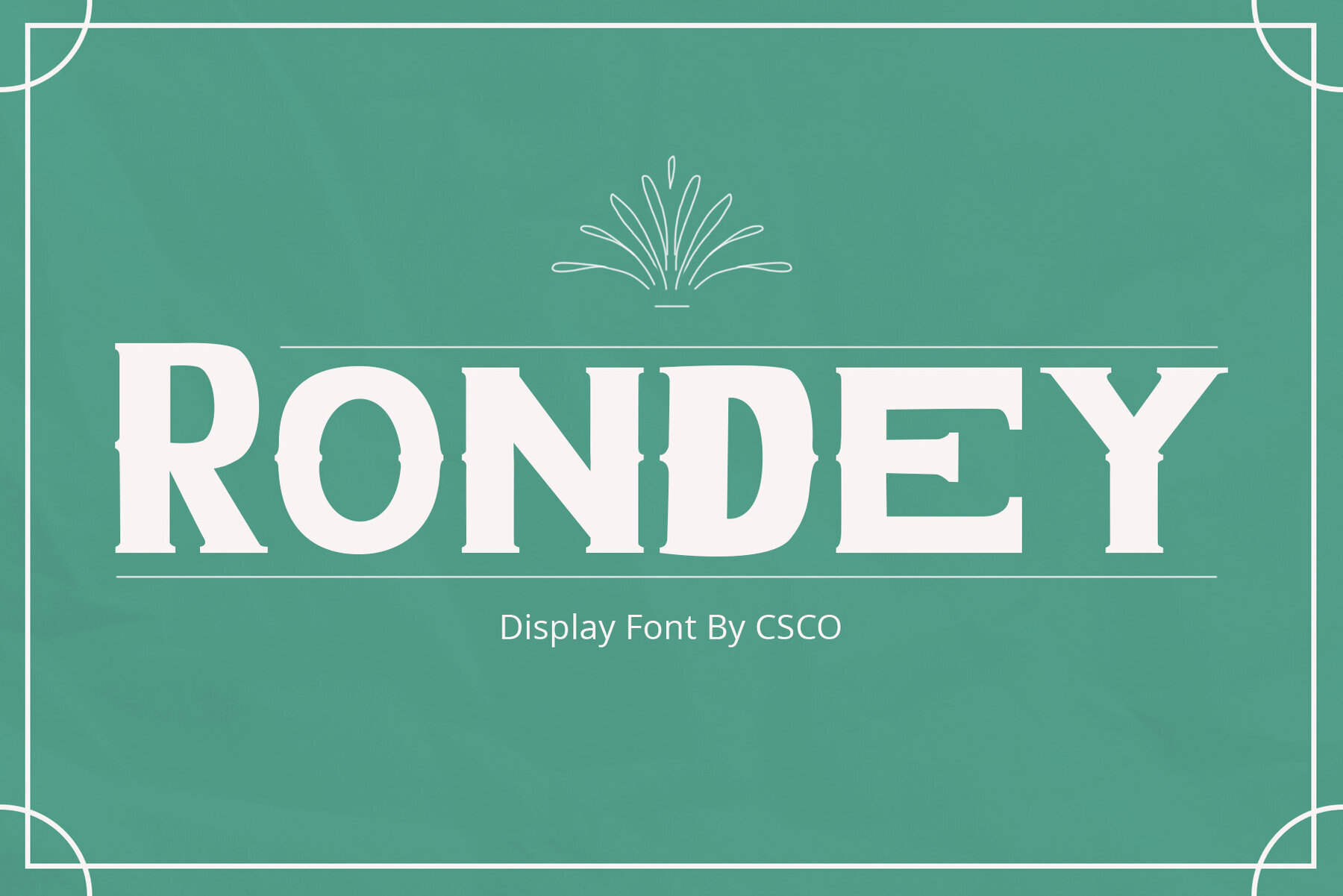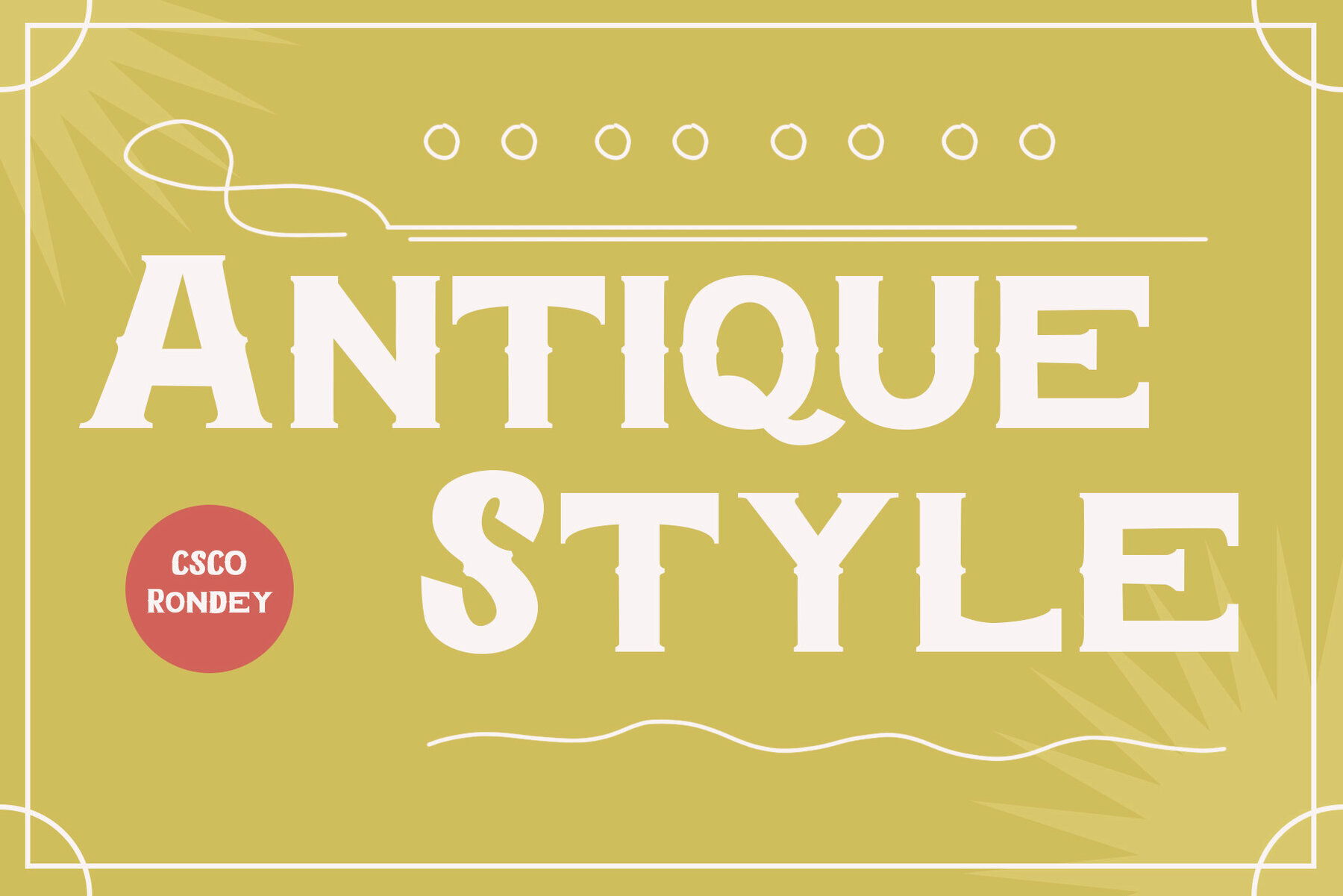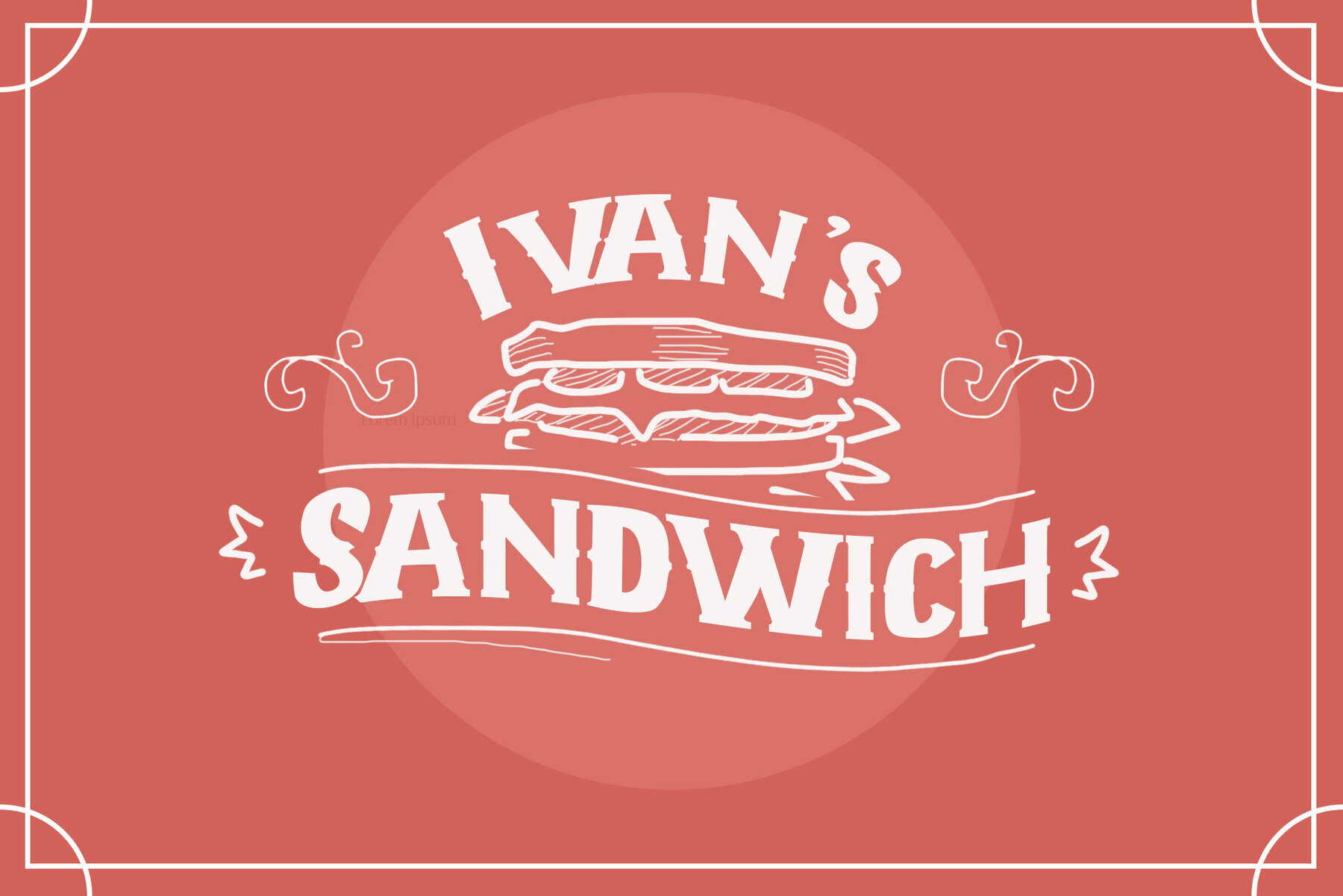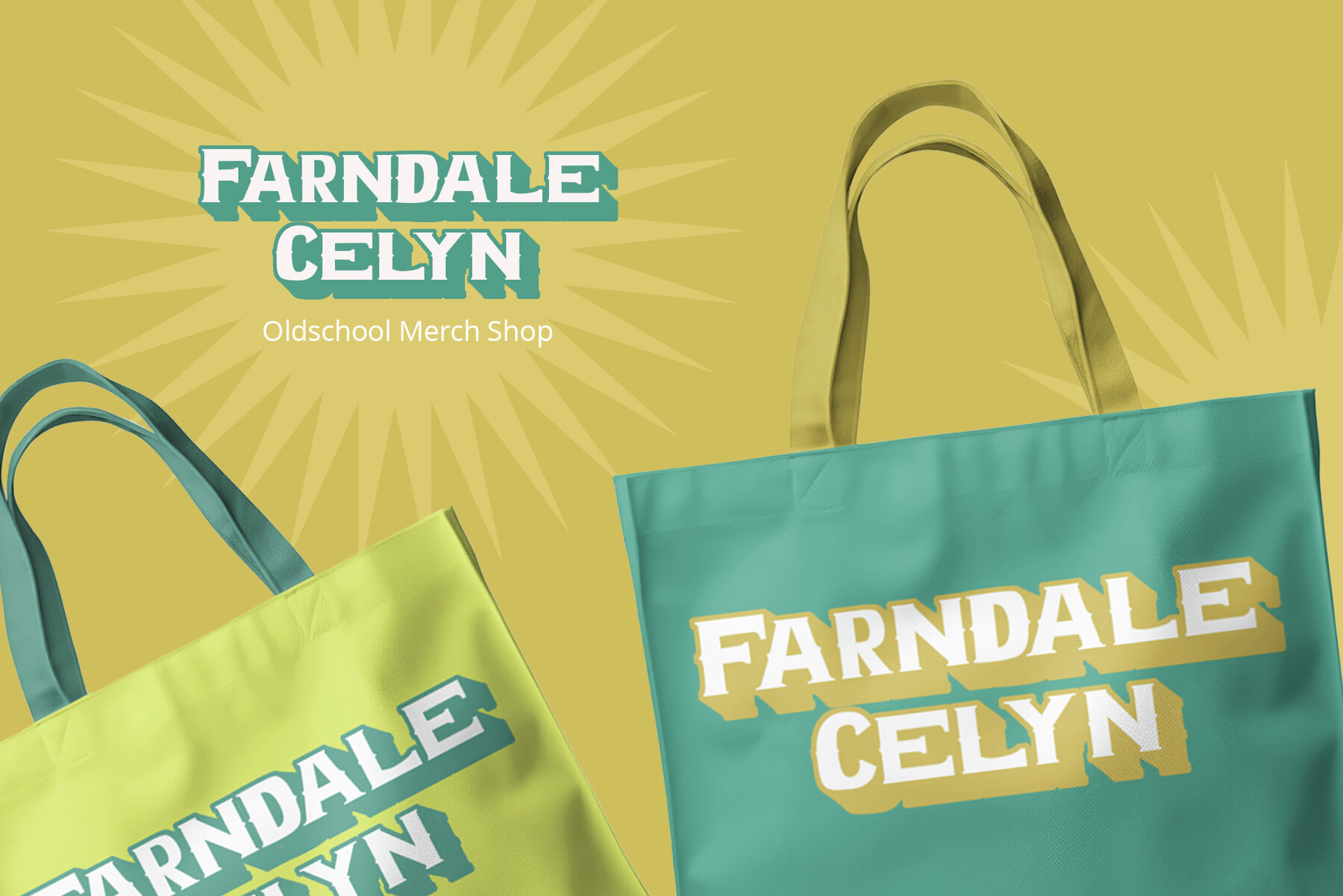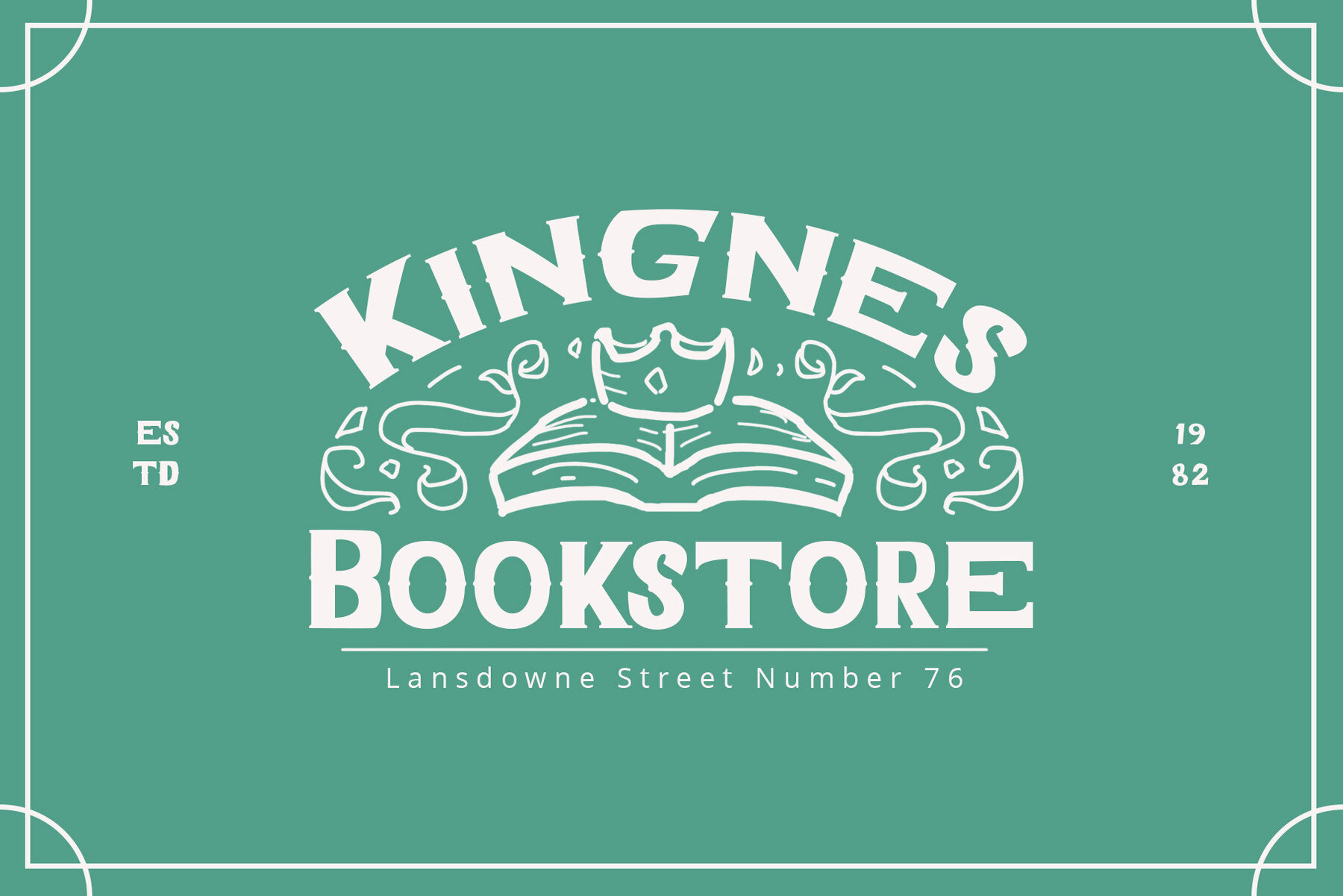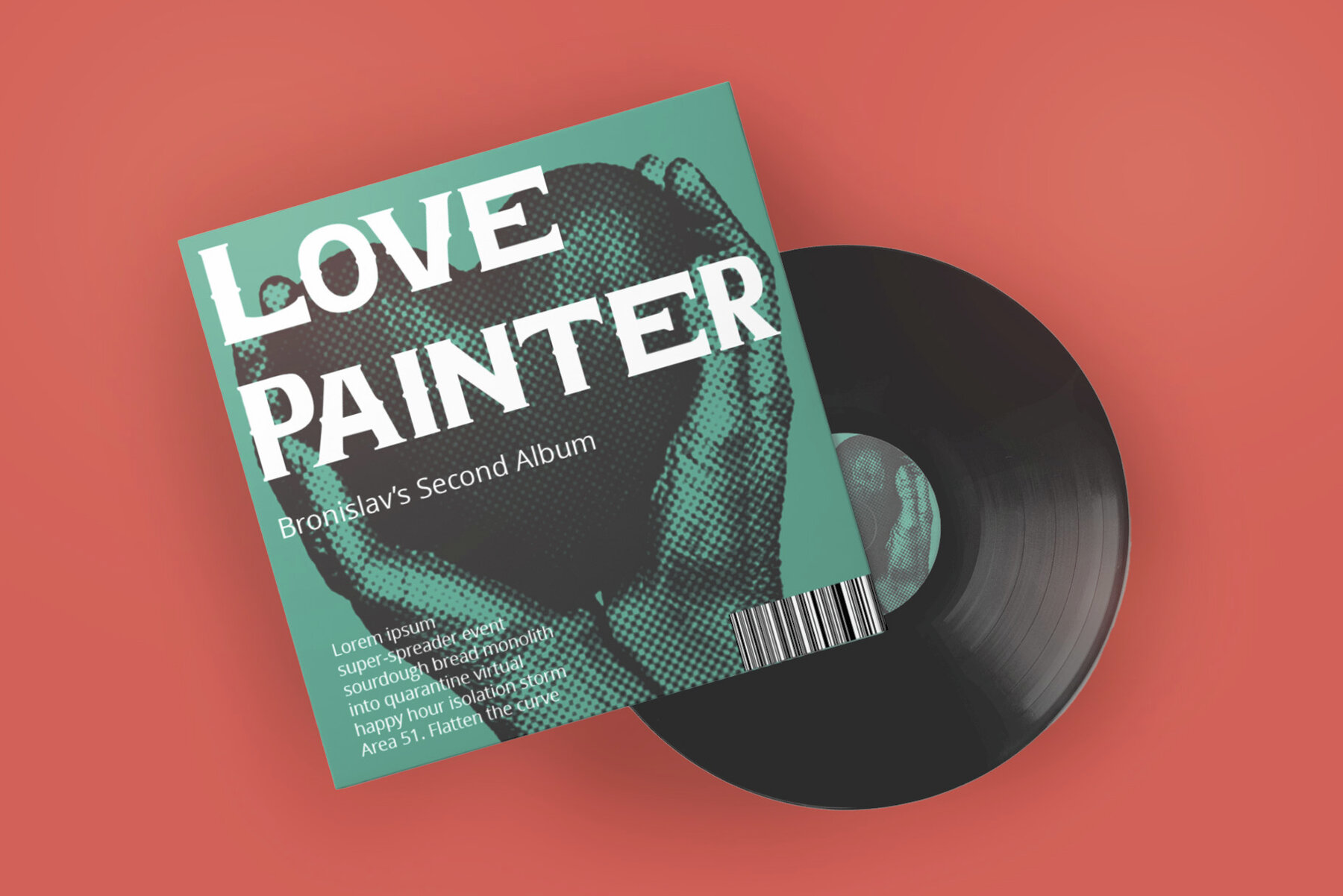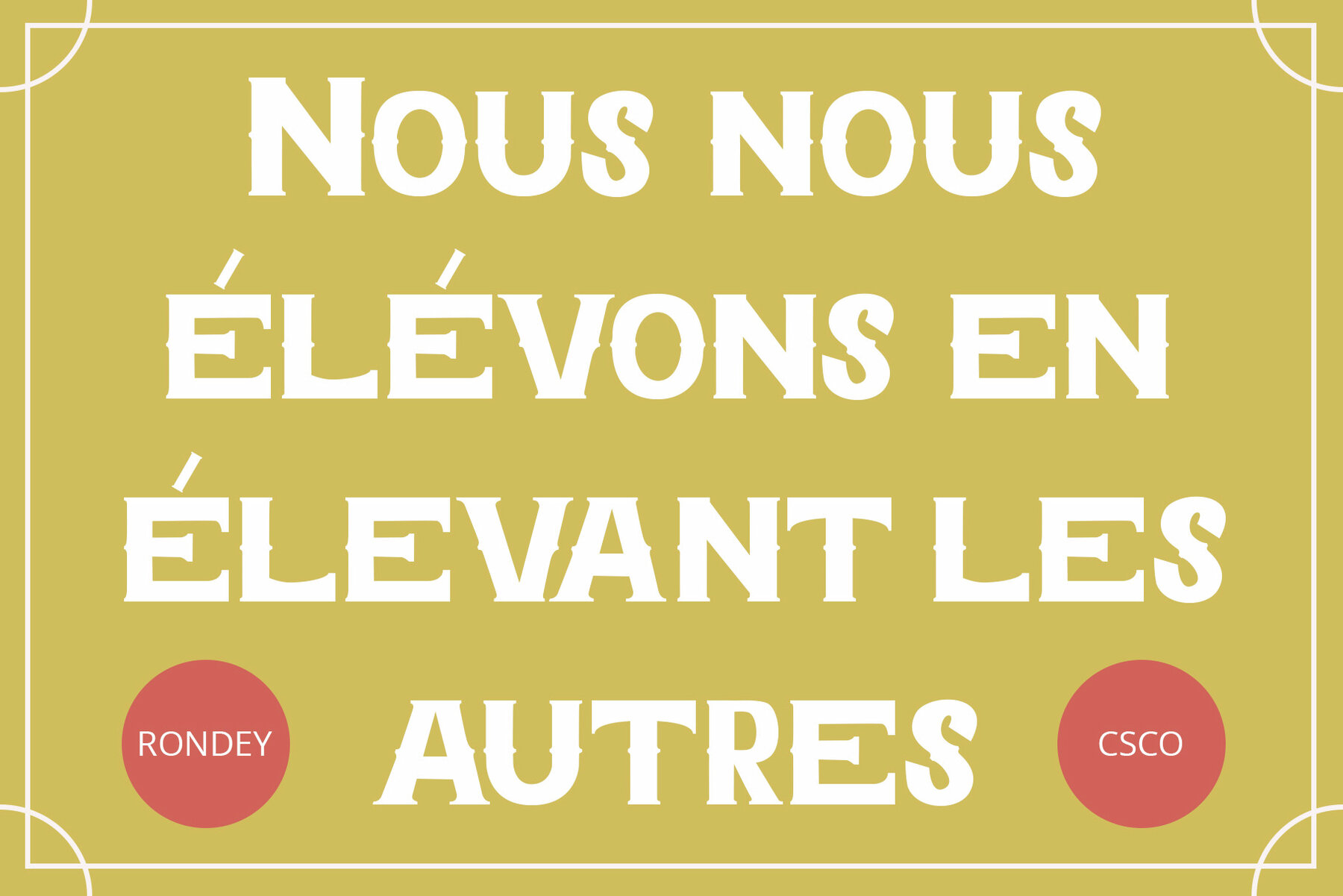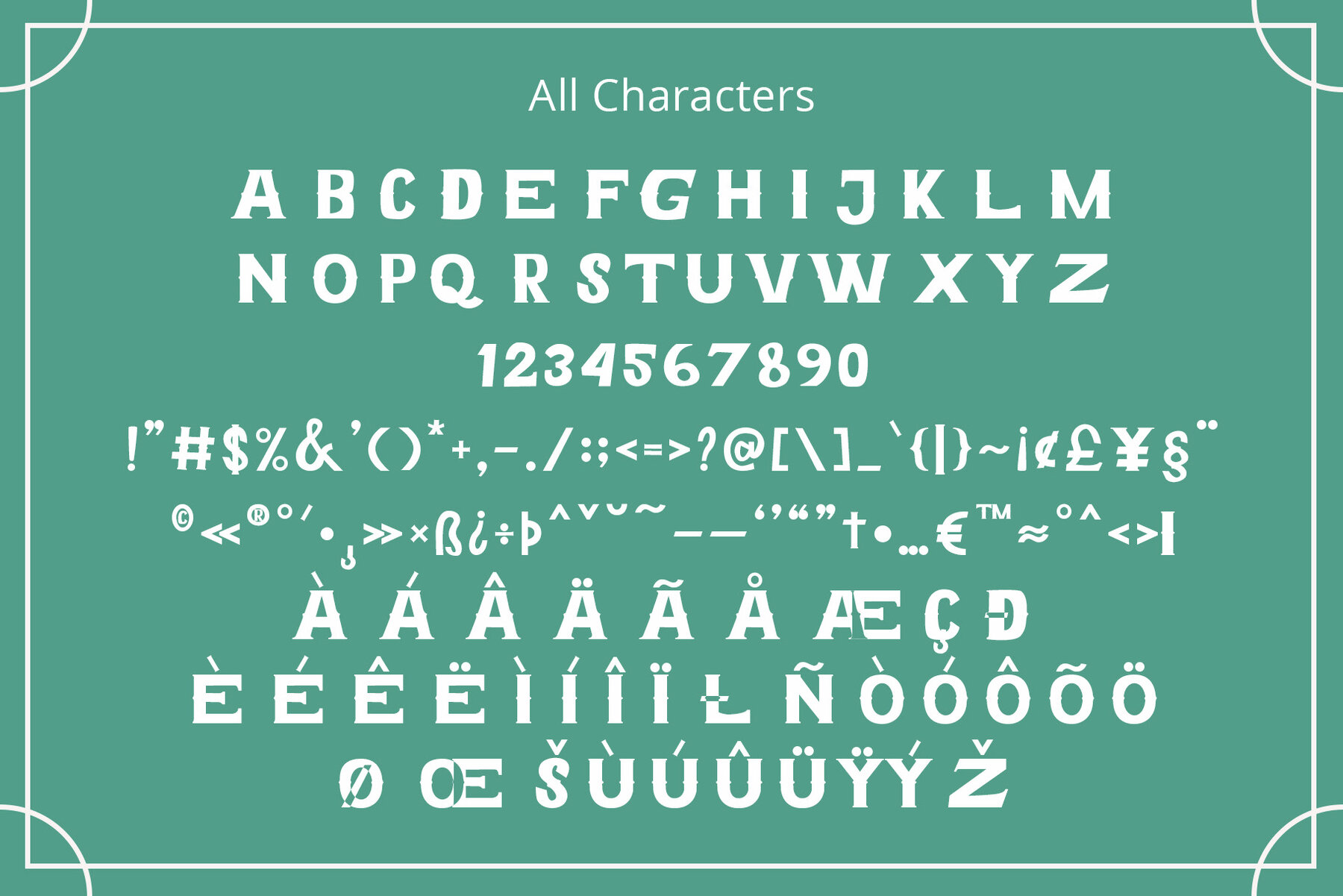
Rondey Font
Rondey Regular
Rondey is a captivating display font that combines bold serifs with a unique twist, perfect for enhancing display purposes with its striking design. Exuding an elegant charm, Rondey's design is perfect for grabbing attention in various display contexts. Beyond its captivating elegance, Rondey offers versatility, allowing it to seamlessly complement a wide range of creative projects.Rondey: Bold Serif with a Unique Twist
Display Elegance
Versatility for Diverse Projects